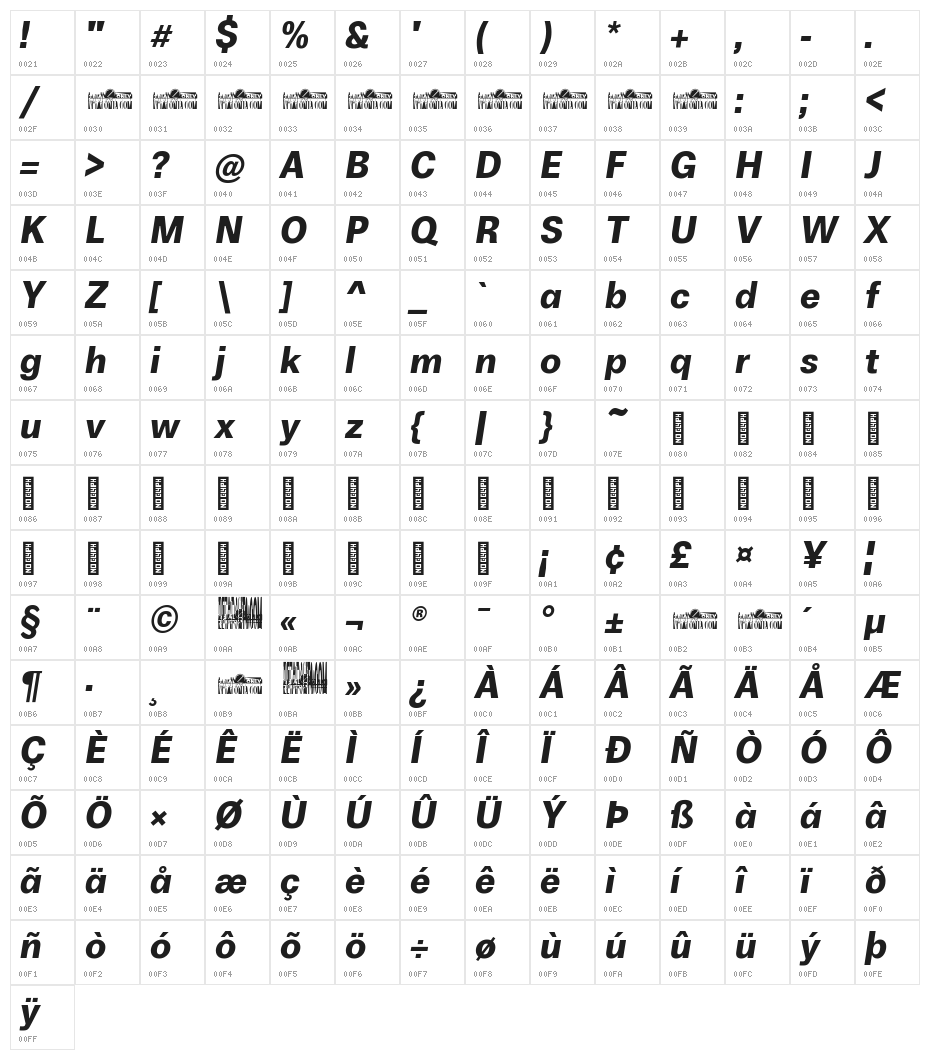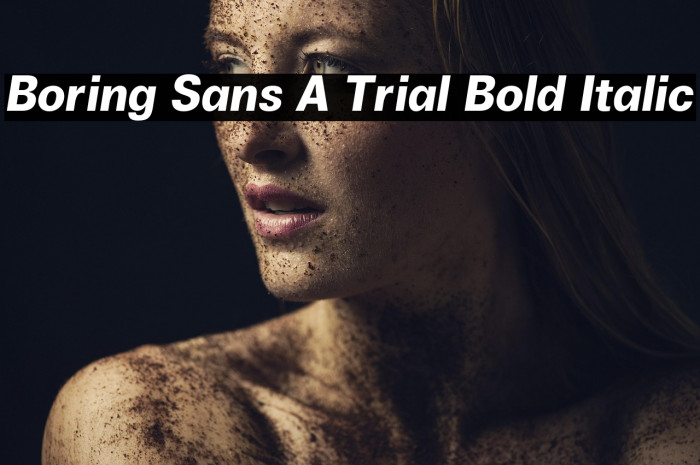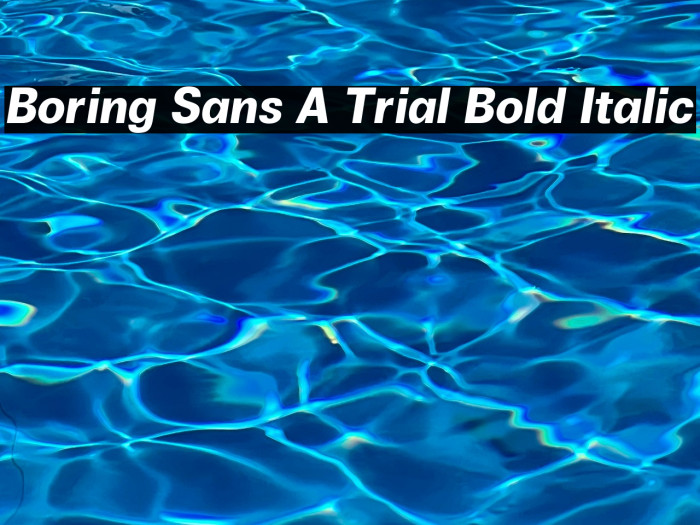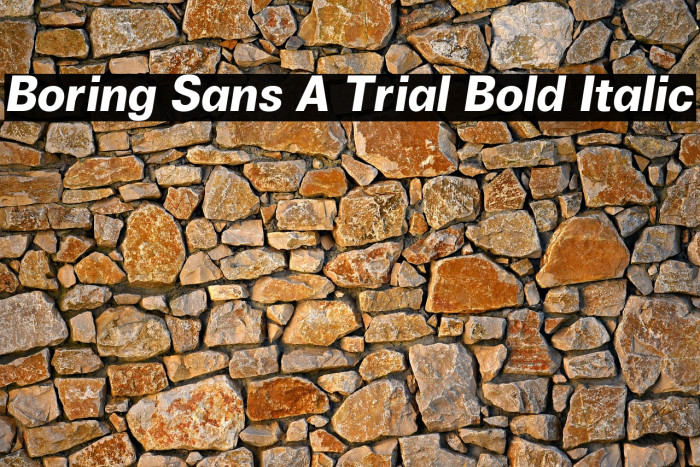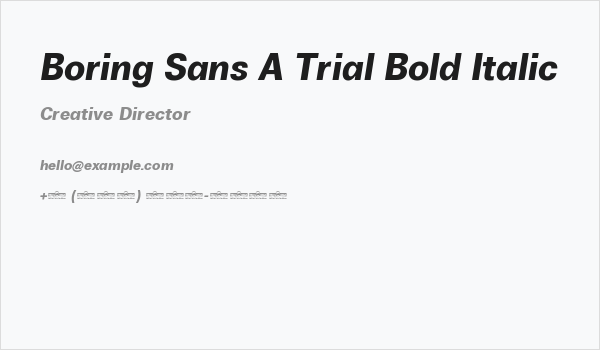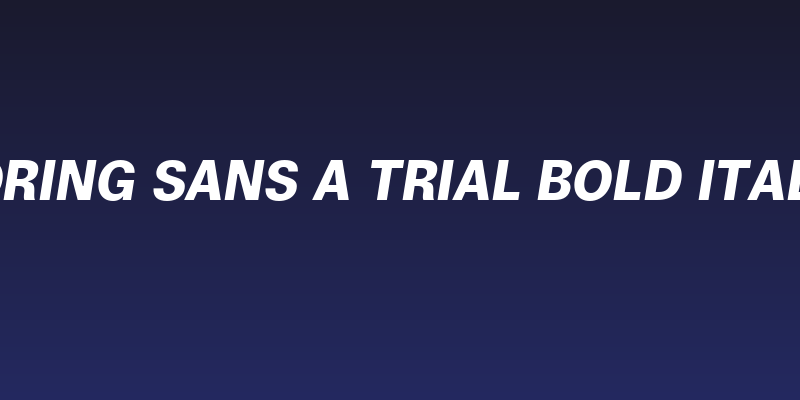
Boring Sans A Trial Bold Italic Font
Boring Sans A Trial Bold Italic Description
This font features a bold and italic style, characterized by its clean and modern sans-serif design. The letters are slightly slanted, adding a dynamic and energetic feel to the text. The bold weight ensures strong visibility and impact, making it suitable for attention-grabbing headlines. The character spacing is normal, providing a balanced and readable appearance. The font maintains a consistent stroke thickness, offering a medium contrast that enhances legibility without sacrificing style. Its contemporary look makes it versatile for various design applications.
| Proposed Projects | Ideal for branding, advertising, headlines, and digital media where a strong and modern presence is needed. |